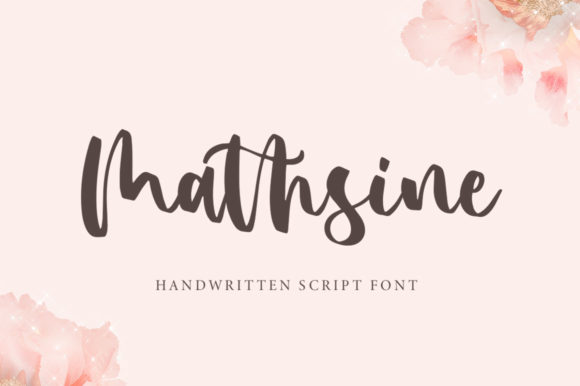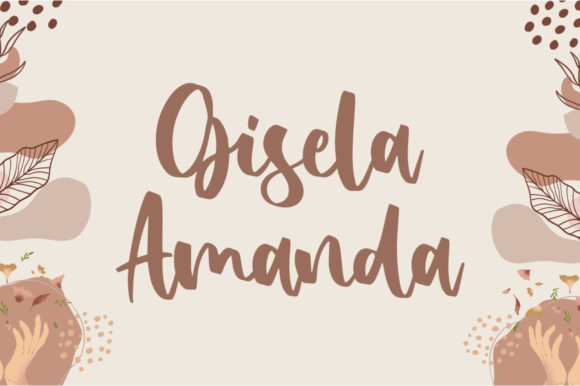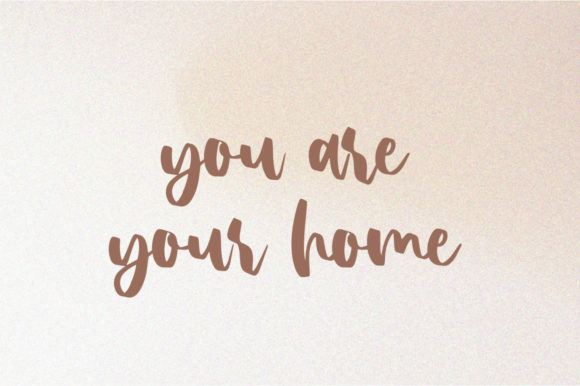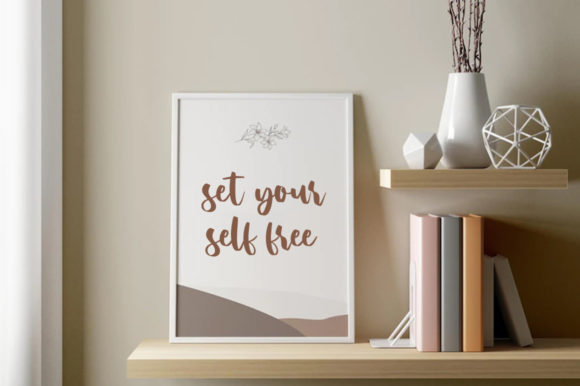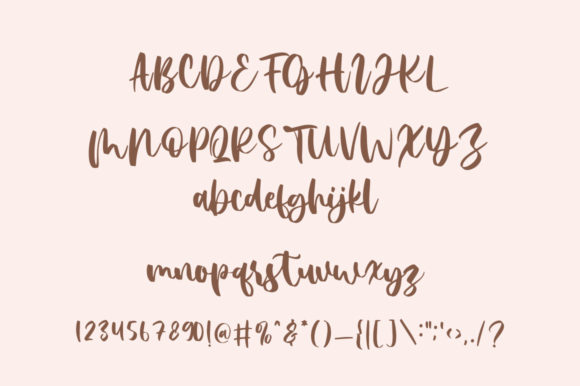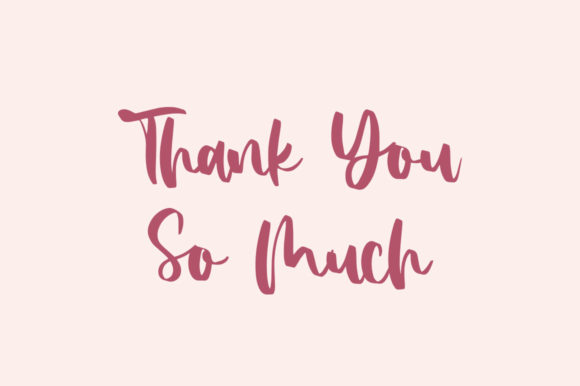
Mathsine Font
About Mathsine Font
“Mathsine” is introduced as a modern script font with a cheery and delicate vibe. The font is described as having qualities that will instantly make your creations look out of this world. The invitation is to add it confidently to your favorite projects and be amazed by the outcome it generates.
The term “modern script font” suggests that “Mathsine” embodies contemporary design elements while maintaining a script style. This combination can make it suitable for projects that seek a balance between modern aesthetics and script elegance.
The descriptors “cheery” and “delicate vibe” imply that “Mathsine” carries a joyful and refined atmosphere. This can be particularly appealing for designs that require a touch of cheerfulness and sophistication.
The phrase “look out of this world” suggests that the font has a distinctive and remarkable quality, making it stand out and capture attention. This can be a valuable asset for projects that aim to leave a memorable impact.
The encouragement to add the font confidently to favorite projects indicates that “Mathsine” is designed to seamlessly integrate into various design contexts. The expectation is that it will enhance and complement a wide variety of creative endeavors.
The anticipation of being amazed by the outcome generated implies that “Mathsine” has the potential to exceed expectations and contribute to the overall success of your creative projects.
In summary, “Mathsine” is presented as a modern script font with a cheery and delicate vibe, designed to make your creations stand out and leave a lasting impression. Its distinctive qualities and the invitation to confidently incorporate it into your favorite projects highlight its potential to add a touch of joy and sophistication to a range of design endeavors.